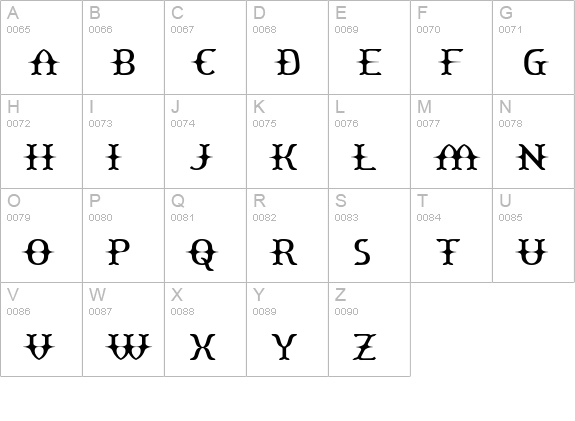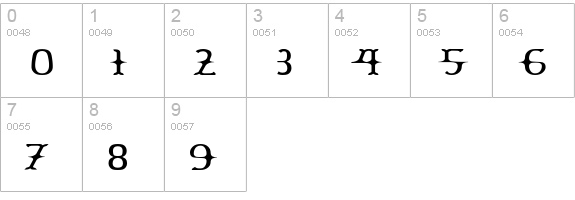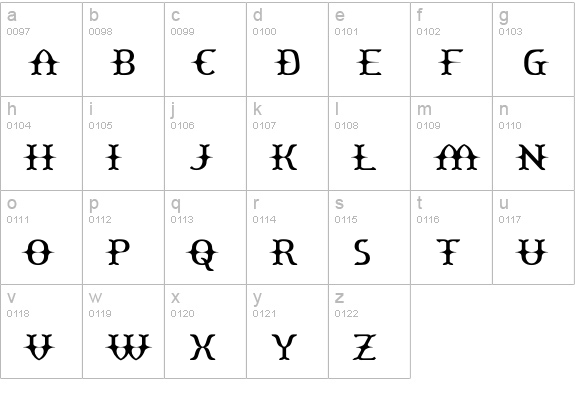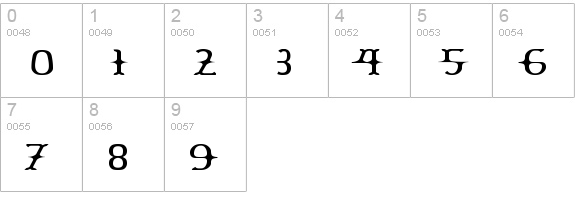
Yawnovision Font Details
Introducing Yawnovision Font - a captivating and versatile typeface that exudes elegance and sophistication. With its sleek lines and modern design, Yawnovision Font is perfect for a wide range of projects, from branding to editorial design. The font's unique character adds a touch of class to any creative endeavor. But what truly sets Yawnovision Font apart is its accessibility - it is available for free download at FontsMarket.com. This means that you can elevate your designs without breaking the bank, making Yawnovision Font the perfect choice for designers on a budget. Don't miss out on this incredible opportunity to enhance your projects with the timeless beauty of Yawnovision Font. Download it now and let your creativity soar!